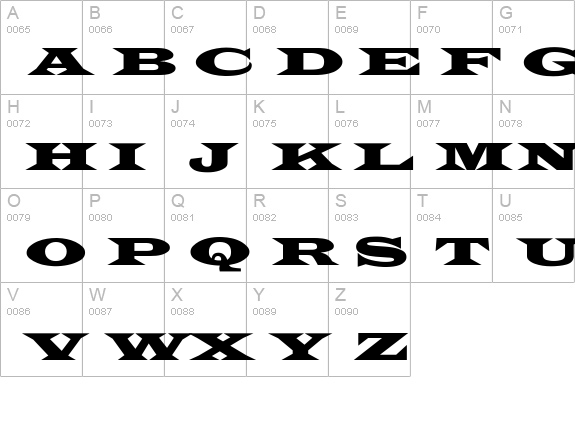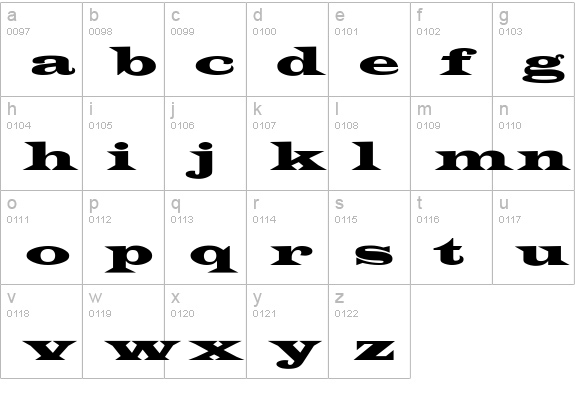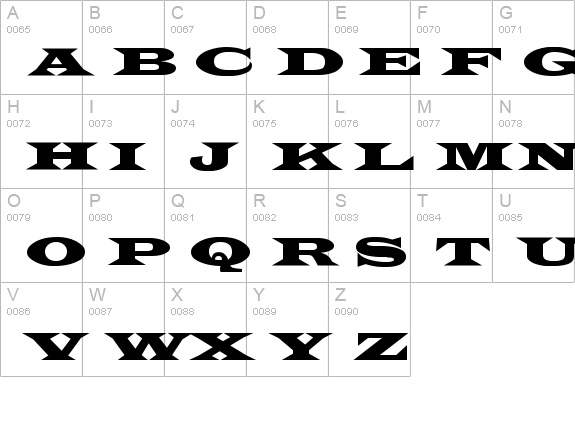
James-WideExt-Normal is the standard, neutral variant in the James typeface family \xE2\x80\x94 well suited to general body text, paragraphs, and standard typographic work.
Introducing James-WideExt-Normal font, a sleek and modern typeface that exudes confidence and professionalism. With its wide letterforms and clean lines, this font is perfect for a variety of design projects, from branding to advertising, to web design and more. James-WideExt-Normal font offers a unique blend of elegance and readability, making it suitable for both headlines and body text. Its balanced proportions and generous spacing ensure optimal legibility, even at smaller sizes. One of the standout features of James-WideExt-Normal font is that it is freely available to download at FontsMarket.com. This means that you can enjoy the benefits of this exceptional font without any cost. Whether you're a professional designer or a casual enthusiast, having access to high-quality fonts for free is a valuable resource that can enhance your creative endeavors. With its extensive character set, James-WideExt-Normal font supports multiple languages, allowing you to communicate your message effectively to a global audience. Its versatility and adaptability make it a versatile choice for a wide range of design projects. So why wait? Enhance your designs with the elegance and sophistication of James-WideExt-Normal font. Download it for free at FontsMarket.com and unleash your creativity today.